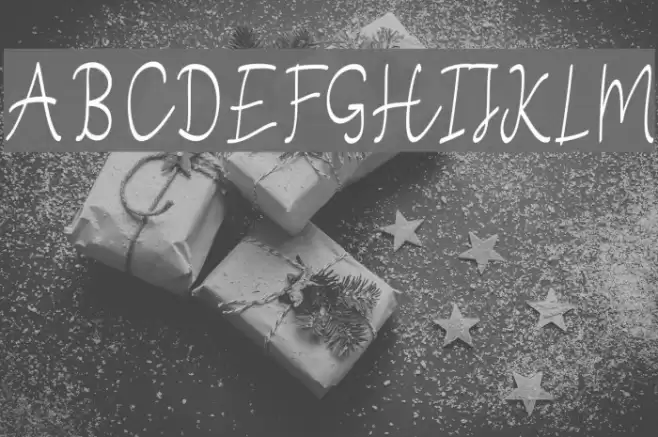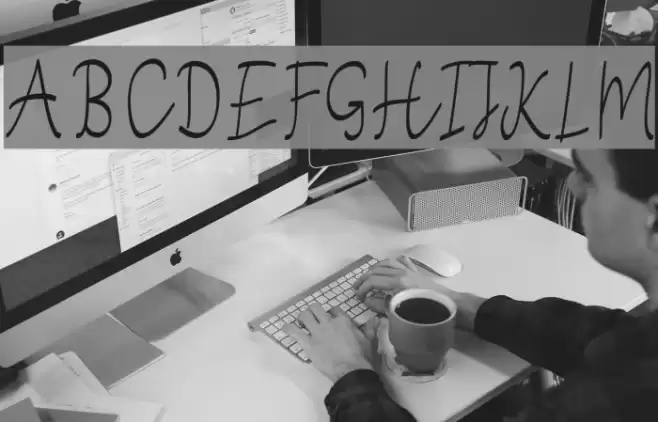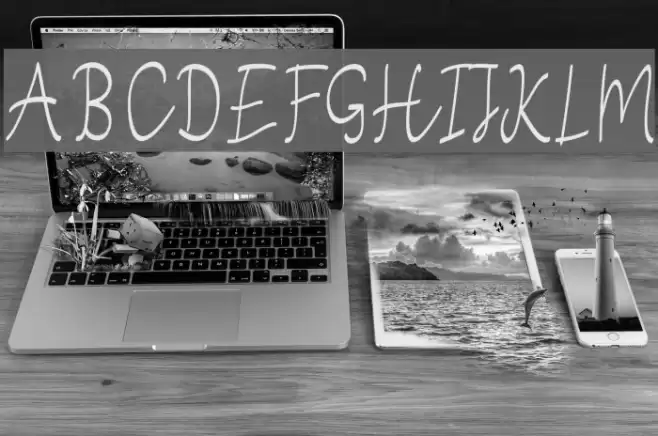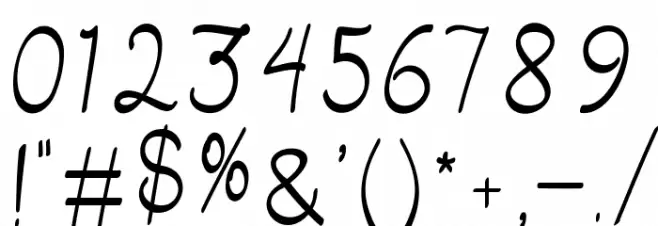
StefianScript Font
StefianScript Description
This font exudes a casual and flowing script style, characterized by its smooth, connected strokes that mimic natural handwriting. The uppercase letters are slightly more structured, maintaining a consistent height, while the lowercase letters exhibit a more fluid and dynamic form. The numerals are clear and legible, complementing the overall handwritten aesthetic. Special characters are integrated seamlessly, maintaining the font's cohesive style. The font's organic and personal touch makes it ideal for projects that require a human element.
A casual, flowing script font with a natural handwritten style from Uncategorized fonts.
- Proposed Projects: Ideal for personal invitations, greeting cards, branding projects, and social media graphics where a personal touch is desired.
- Overall Style: Casual, Handwritten
- Use Case: Logos, Invitations, Social Media Graphics